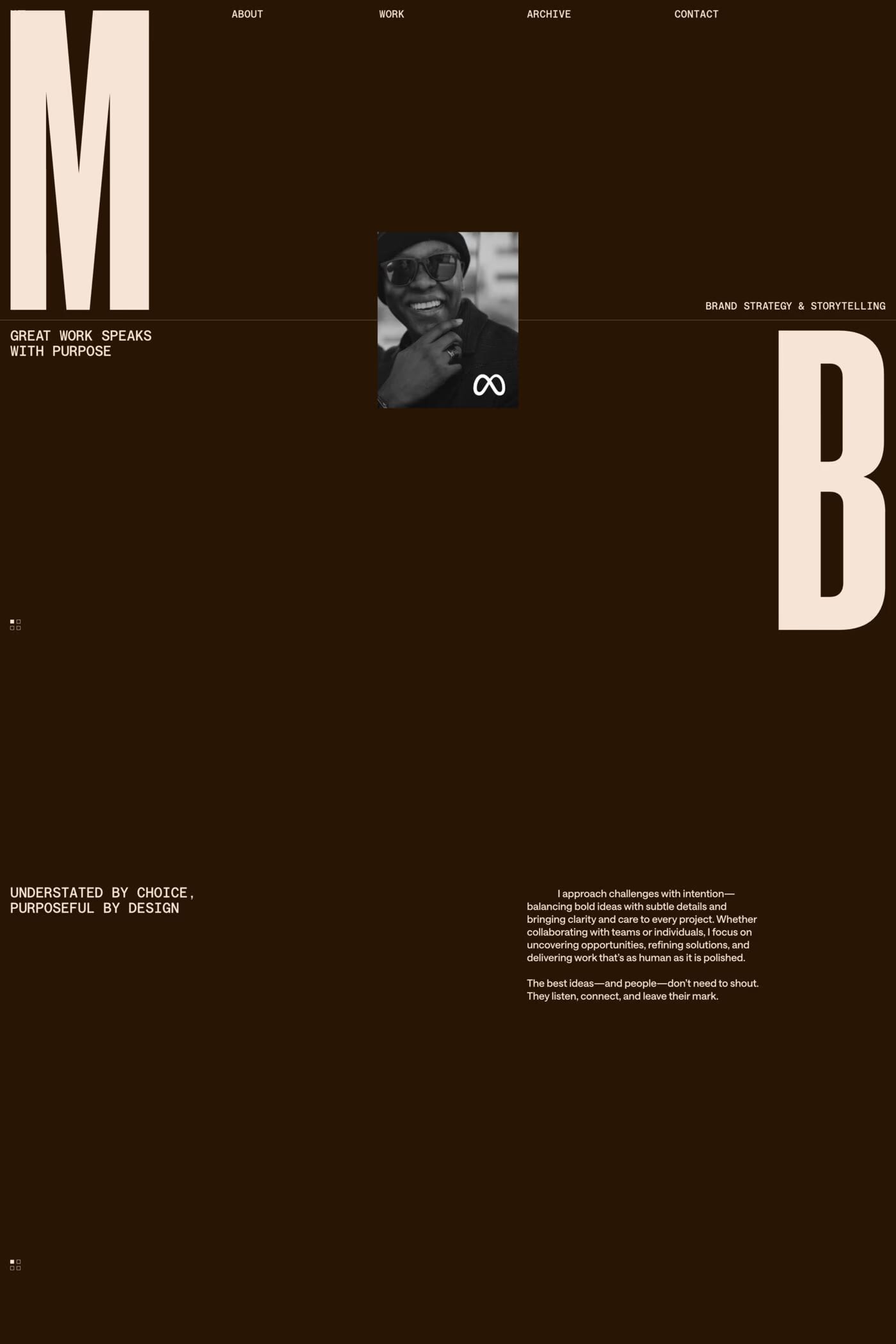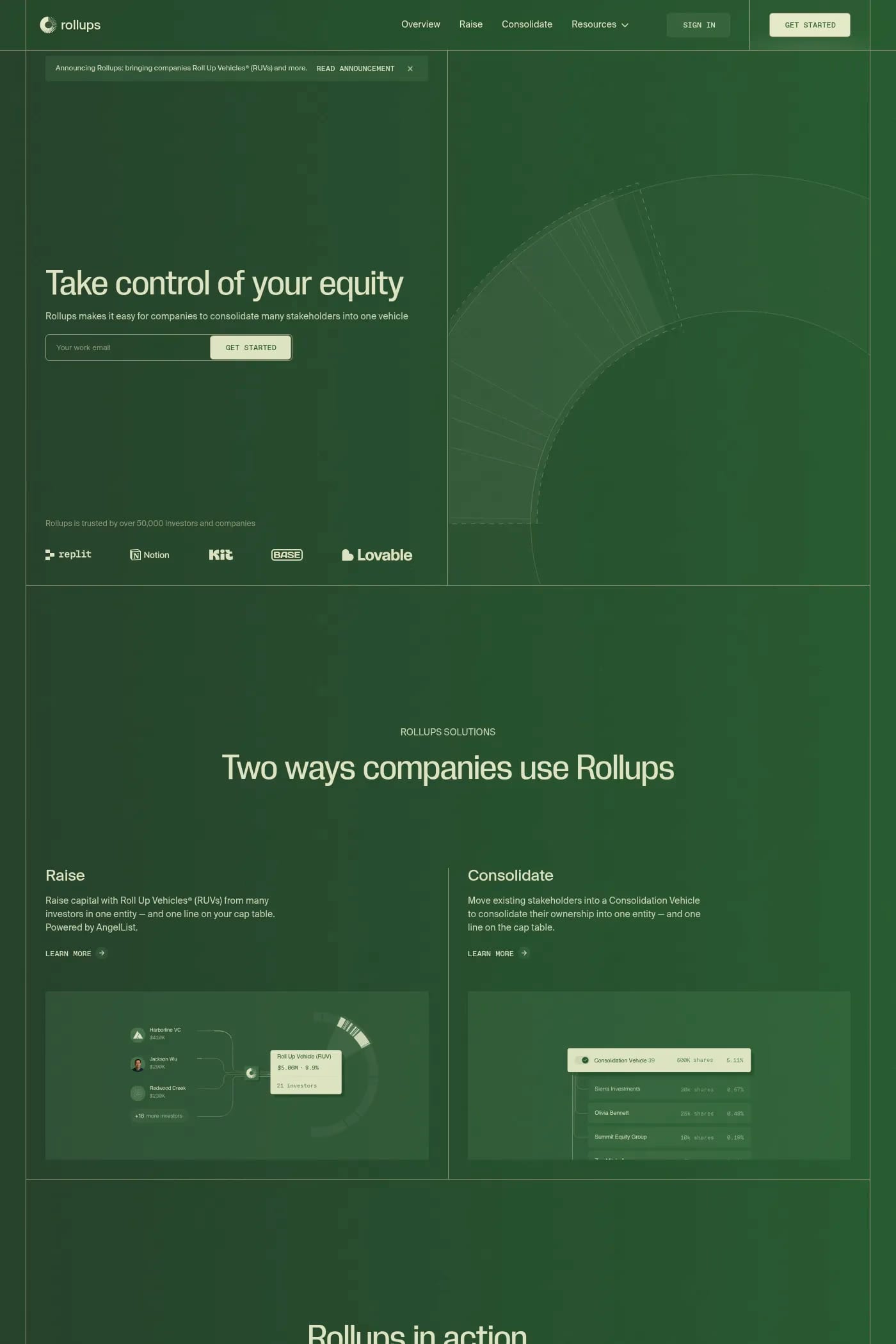
Neue Corp is a sans-serif typeface from Pangram.
Neue Corp is a versatile typeface, crafted to be the ultimate creative tool for any advertising, marketing, or digital endeavor. Designed with a broad range of widths and weights, it empowers designers and studios to adapt it to any context, from bold headlines to refined body text.